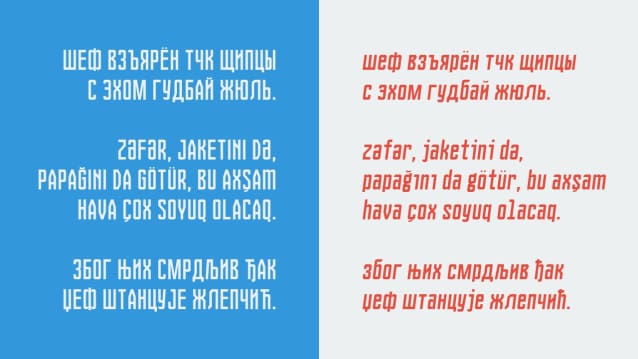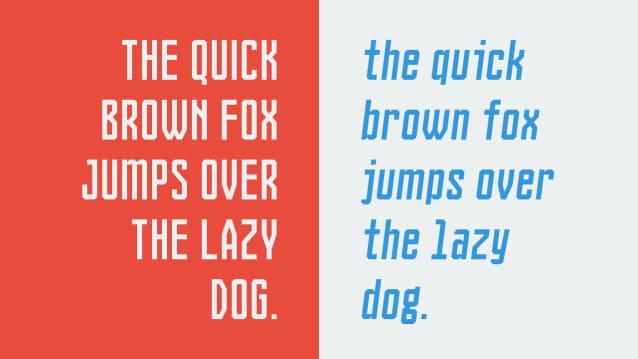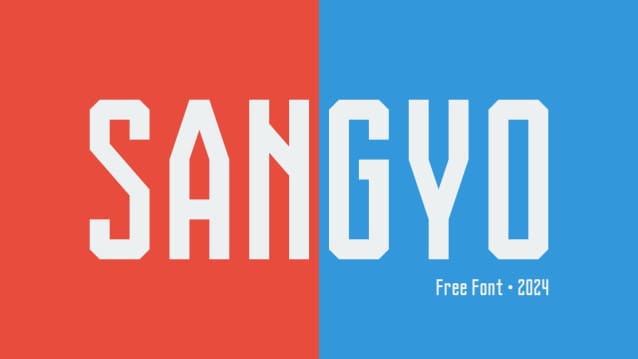
Sangyo Font
Sangyo Font, Suitable for any design needs : logo, branding, modern advertising design, logos, poster quote, book / cover Title, editorial design, website / blog, card, t-shirts, and any hand-lettered needs.